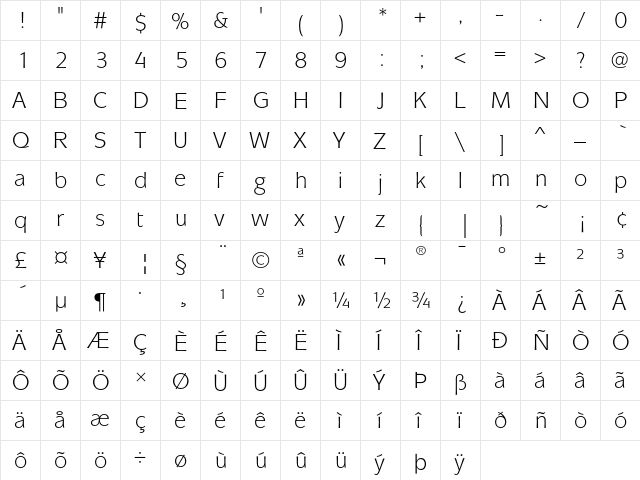
MixageEF Book
Design Context for MixageEF Typeface
MixageEF offers clean, dependable letterforms without strong stylistic allegiance, making it a practical choice for designers who need flexibility.
Pro Tip: Use MixageEF in both headline and body roles to test its range before committing to a single application.